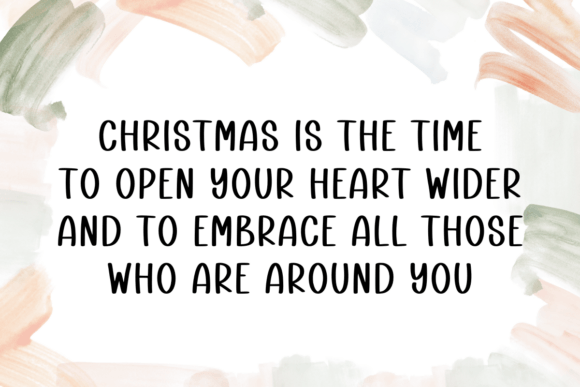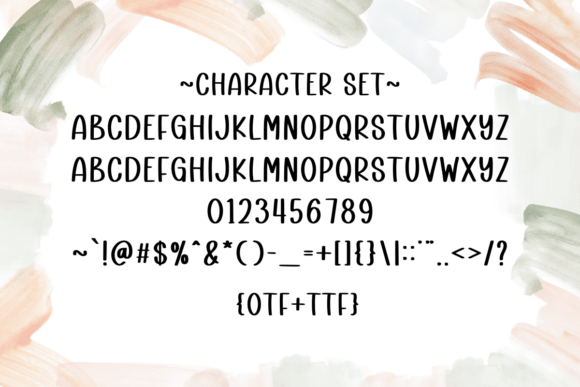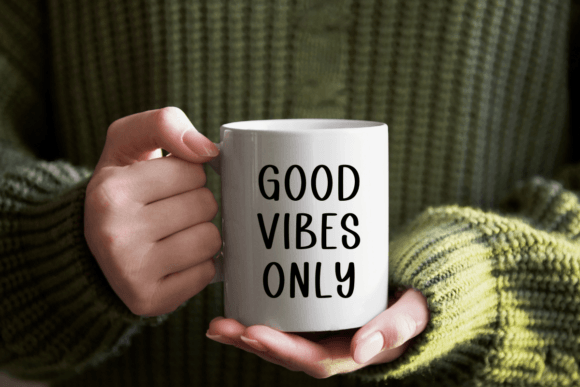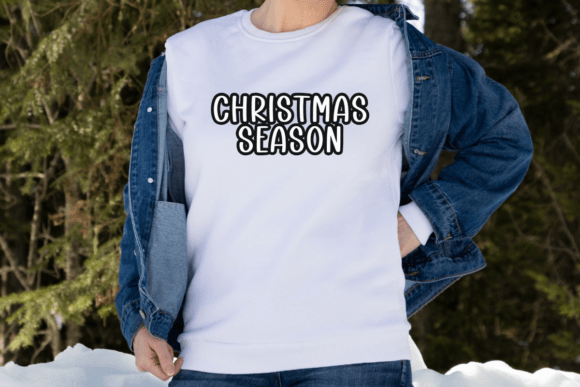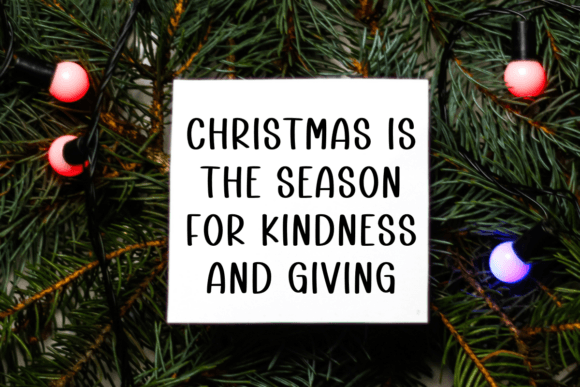
Introduction to Magical Gifts Font
Magical Gifts is a fun and bold sans serif font.
This font is perfect for various designs that are retro, fun, cute and bubbly .
Key Features of Magical Gifts Font
Why Choose Magical Gifts Font?